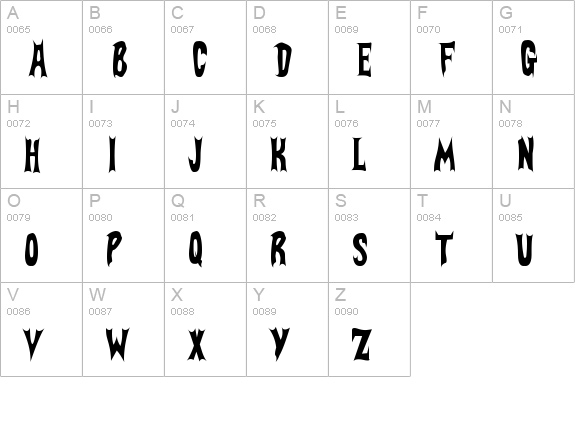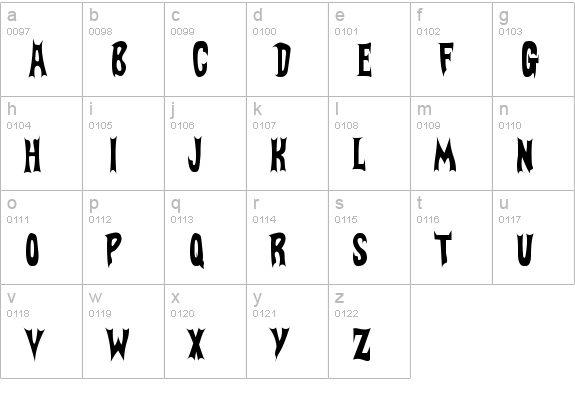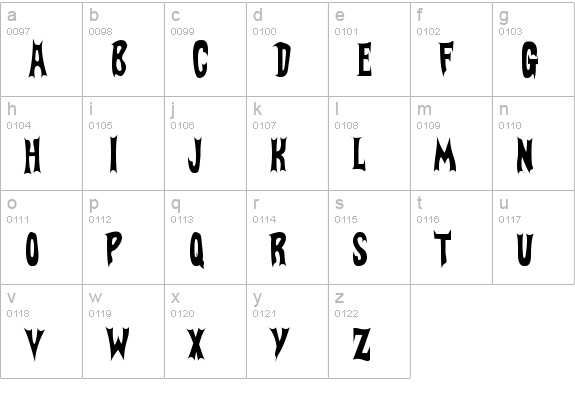
Introducing BatFont - a striking and unique font that adds a touch of mystery and elegance to any design project. With its bold lettering and intricate details, BatFont exudes a sense of sophistication and creativity. Perfect for Halloween-themed designs, gothic-inspired projects, or any time you want to make a statement. The best part? BatFont is completely free to download at FontsMarket.com. With just a few clicks, you can add this eye-catching font to your collection and start creating stunning designs. Whether you're a graphic designer, artist, or simply looking to add a touch of flair to your projects, BatFont is sure to impress. Download it today and let your creativity take flight with this captivating font.